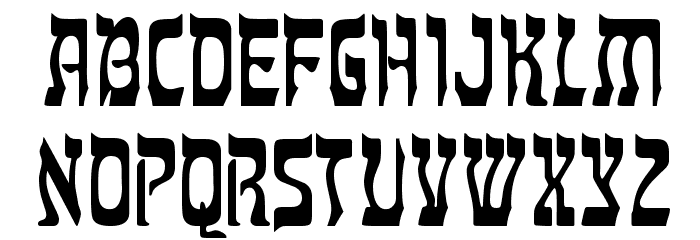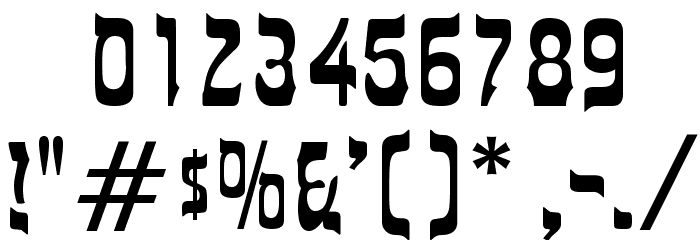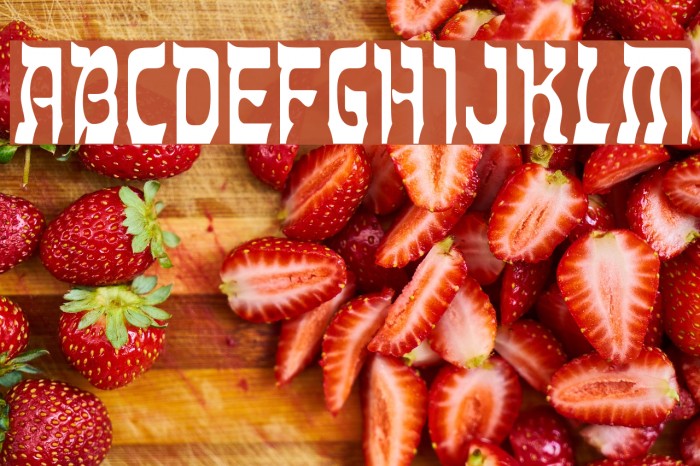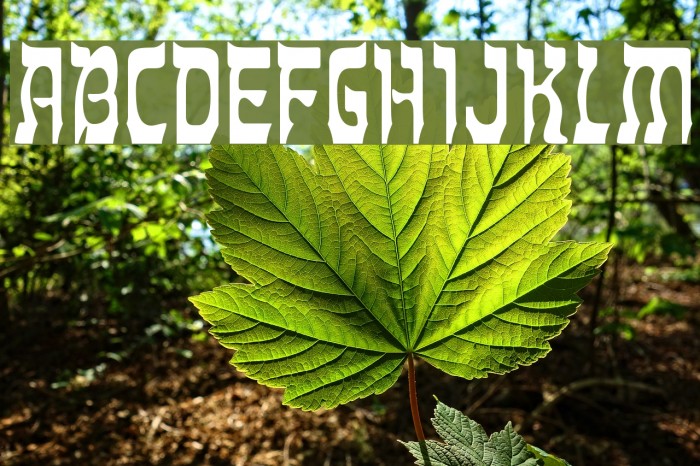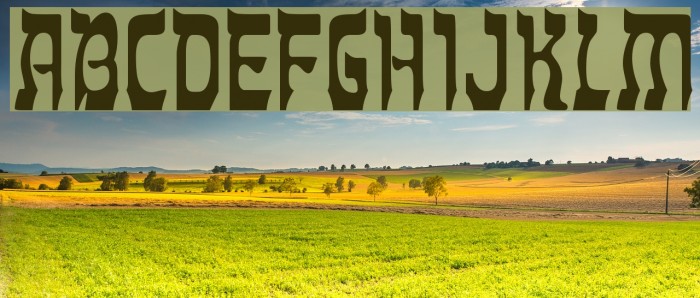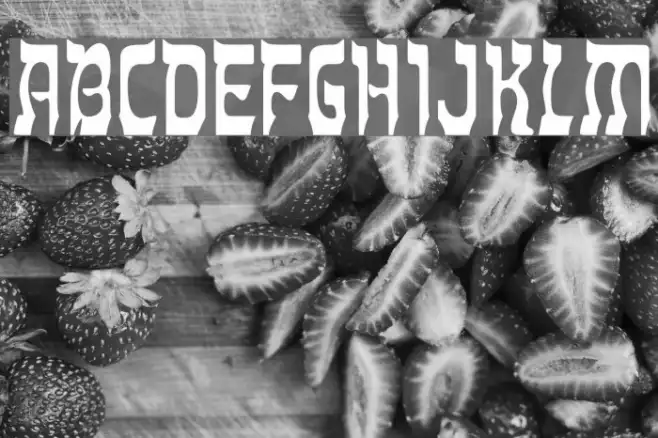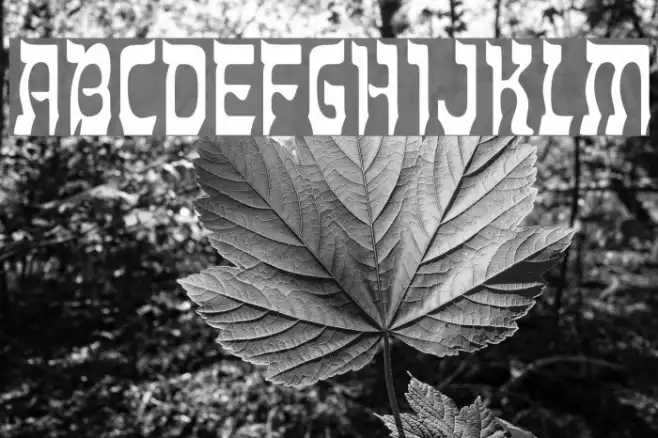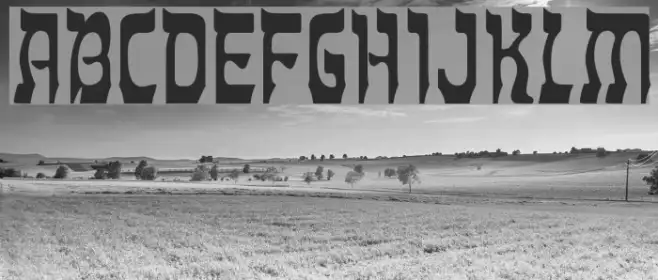
Massena Font
This font features a bold and striking design with sharp, angular edges and a distinct geometric style. The uppercase letters are particularly eye-catching, with a unique blend of modern and vintage elements. The characters have a strong presence, making them ideal for attention-grabbing headlines or logos. The numbers and special characters maintain the same bold aesthetic, ensuring consistency across all text elements. The font's overall appearance is both decorative and functional, suitable for a variety of creative projects.
A bold, angular font with a geometric and vintage flair.
- Proposed Projects: Ideal for posters, branding, logos, and any project requiring a bold statement.
- Overall Style: Modern Vintage